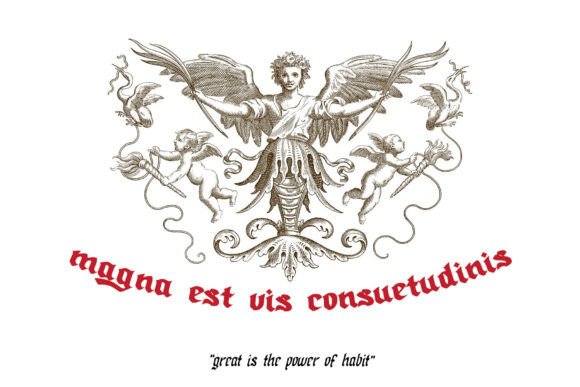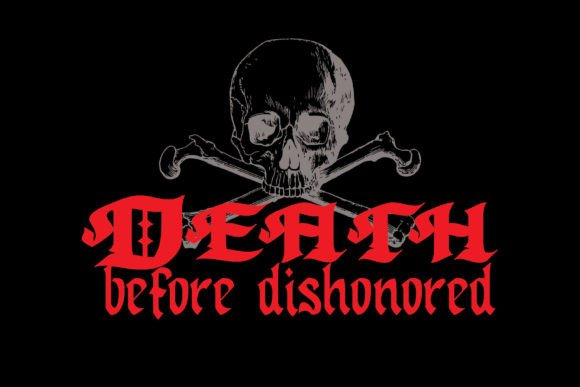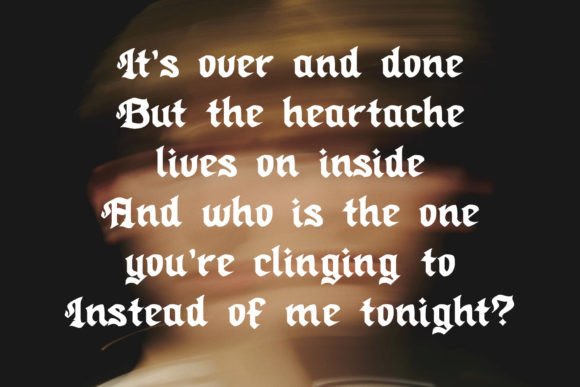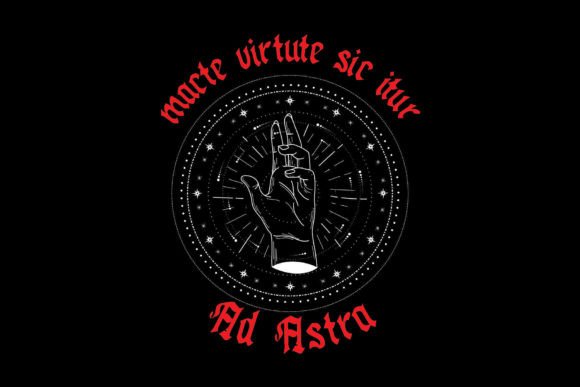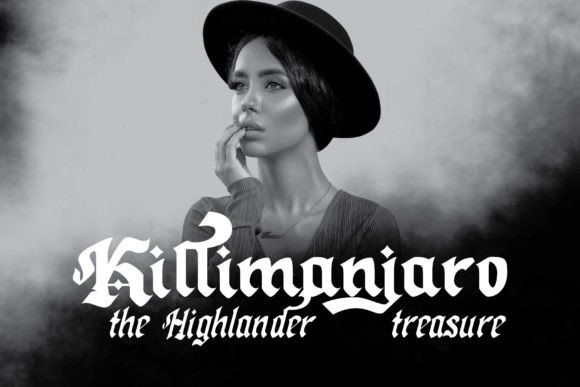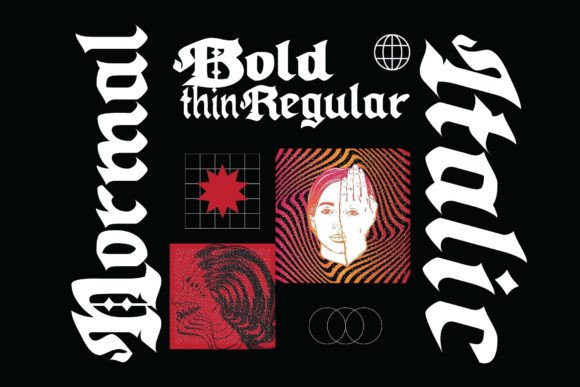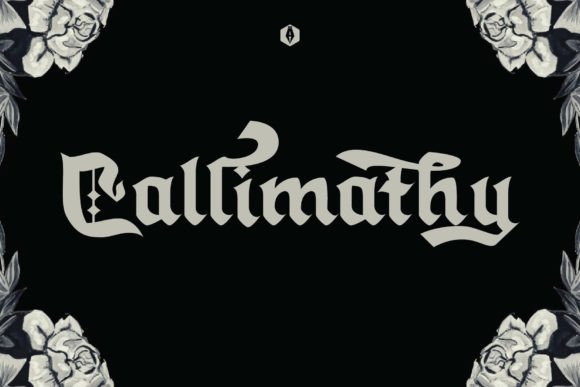
The Perfect Font for Making a Statement: Callimathy Font
You’re staring at a blank canvas, your creativity is flowing, and you’re about to bring your design to life. The right font can make all the difference between an ordinary and an extraordinary design. For those who crave bold, daring typography, there’s a font that’s sure to impress: Callimathy Font.
This stunning blackletter font is perfect for product packaging, branding, or any project that requires a touch of elegance and sophistication. Its stylish features will elevate your design to new heights, making it a valuable asset for designers looking to make a statement. With Callimathy Font, you can add a sense of drama and flair to your work, setting you apart from the crowd.
Callimathy Font Key Features
- Font Family: Callimathy is a serif font family with a classic and elegant feel, suitable for both body text and display use.
- Character Count: The Callimathy font family includes a wide range of characters, including Latin, Greek, and Cyrillic scripts, covering over 1000 glyphs.
- Unique Characteristics: Callimathy features a unique blend of modern and traditional design elements, with subtle flair and ornate details that set it apart from other serif fonts.
Callimathy Font Review
As a designer, I was excited to dive into the Callimathy font and see what it has to offer. Here’s my honest take:
- The Callimathy font has a unique and elegant feel to it, making it perfect for designs that need a touch of sophistication.
- The font’s script-like curves and flourishes add a level of personality to any text, making it stand out from more traditional fonts.
- The font’s high x-height makes it easy to read, even at smaller sizes.
- The Callimathy font may not be the best choice for body text due to its ornate nature, which can make it difficult to read at longer lengths.
The Callimathy font is a beautiful and unique addition to any designer’s toolkit. While it may have some limitations, its elegant feel and high x-height make it perfect for designs where you want to make a statement. With some careful planning and consideration, the Callimathy font can be a valuable asset in your design arsenal.
For the best results, use the Callimathy font in headings and titles, as it’s a serif font that works well with larger text.
The Callimathy font is well-suited for:
Book titles and headings
Magazine and newspaper headlines
Website titles and headings
Any design where a classic, elegant serif font is desired.